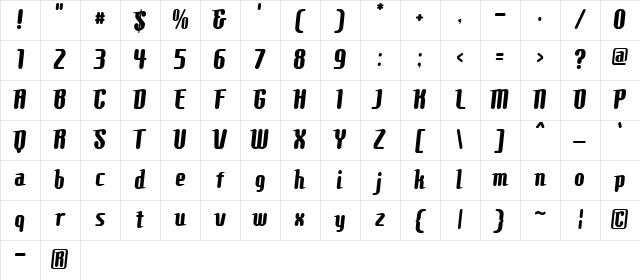
Comons Bold Free Font
Comons Bold
Design Context for Comons
Comons is a composed and adaptable typeface that performs quietly and consistently across a wide range of design contexts. Its bold stroke weight gives it real presence on the page.